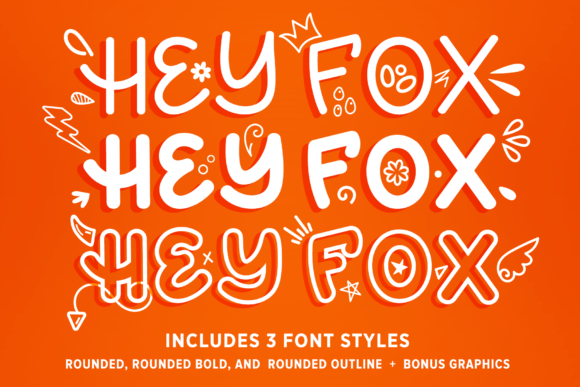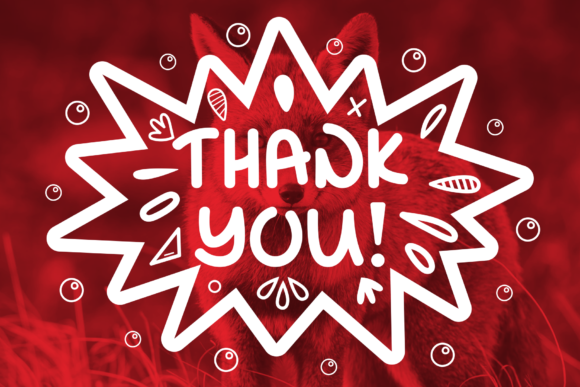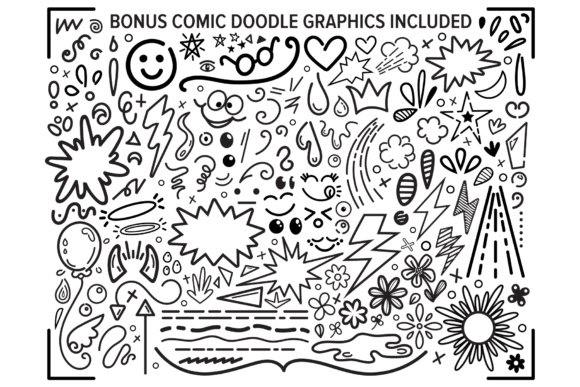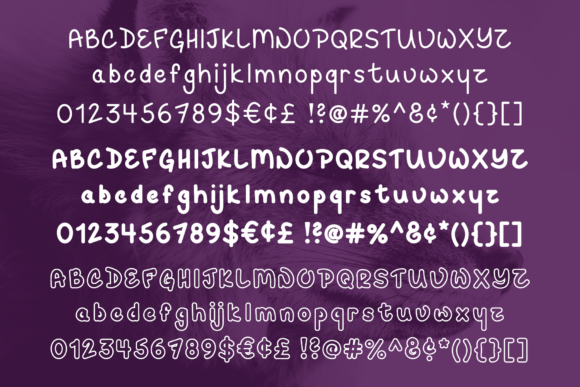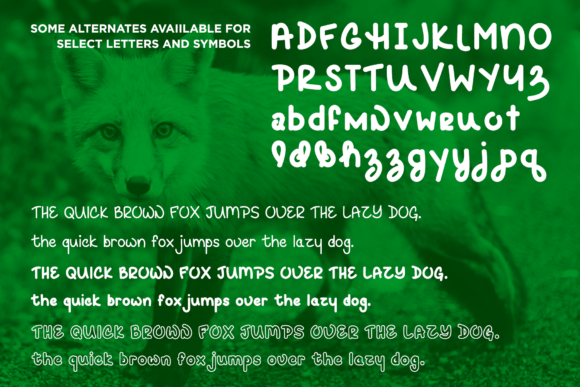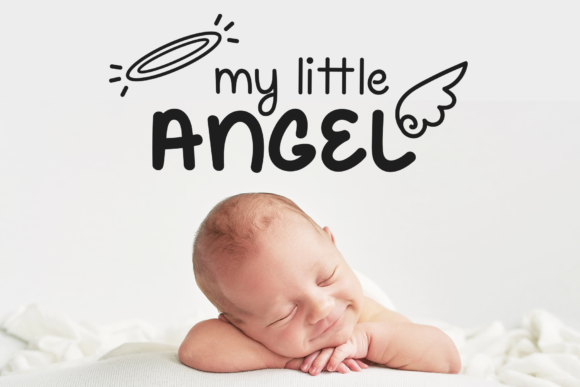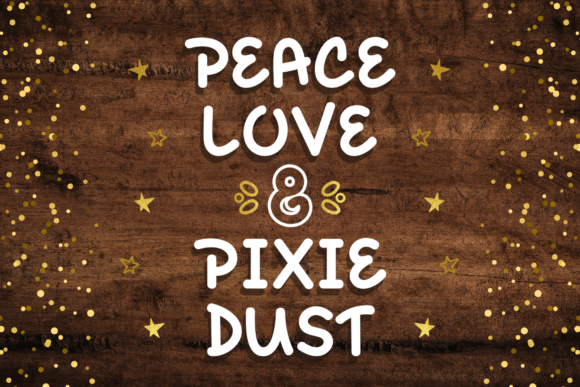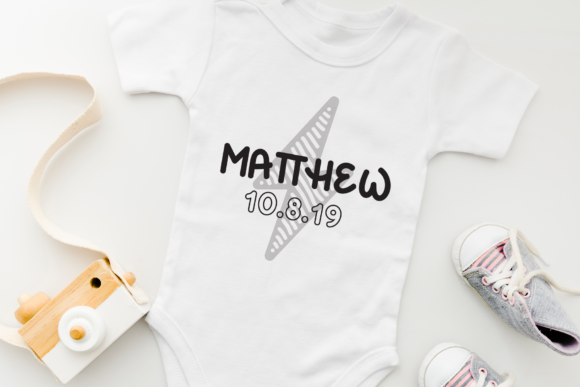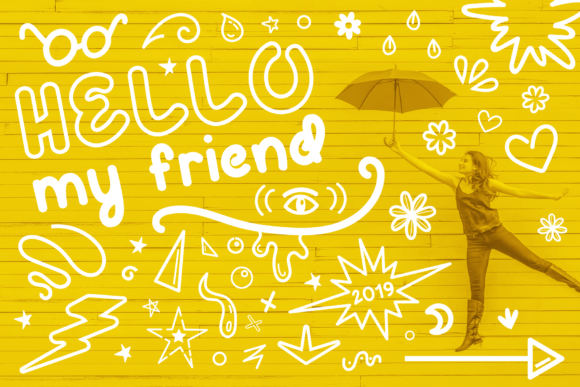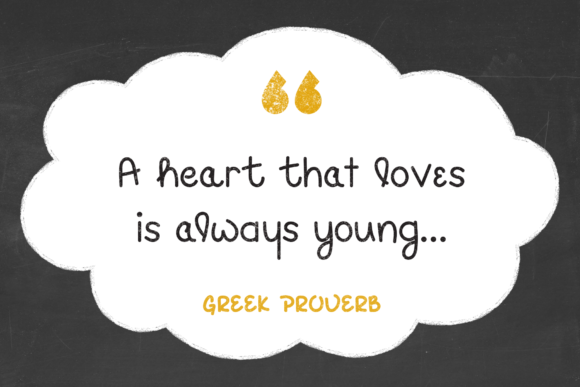
Hey Fox Rounded Font Trio Font
Introducing HEY FOX, a handmade font trio with over 150+ BONUS cartoon doodle graphic elements to alter and edit and play with as needed! Regular, Bold, and Outline font weights are included in the Hey Fox rounded font set. All three font weights include uppercase, lowercase, punctuation, and numbers. This fun and friendly handwritten typeface can be used in personal and commercial projects. Some letters and punctuation and symbols include alternatives which can be accessed using glyphs in programs like Adobe Photoshop and Illustrator.